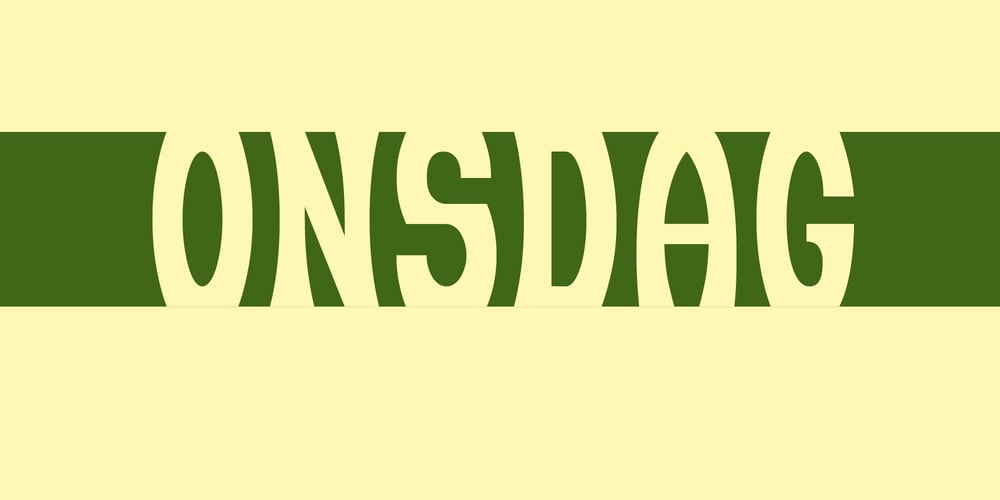
Onsdag
Onsdag font
Onsdag Font Family was designed by Lars Törnqvist and published by Cercurius. Onsdag contains 1 styles and family package options. Onsdag is a display typeface with many alternate characters. It is designed for large sizes and can be used for logos, posters, book covers, record sleeves, packages, etc.